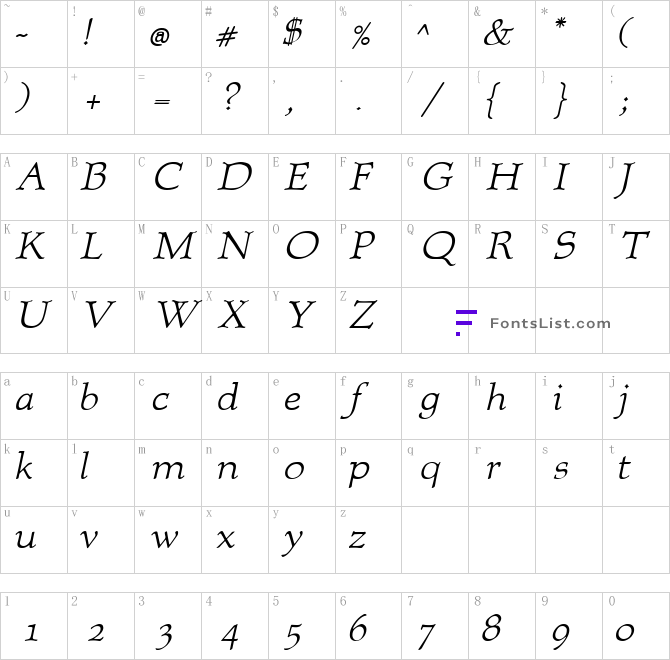
- Font Name:Albion Italic
Albion-Italic.ttf is a very beautiful artistic font, Albion-Italic.ttf is widely used in the design and printing of various books and pictures,Albion-Italic.ttf has a strong visual impact,Albion-Italic.ttf is a commonly used font in newspapers, magazines and books, and is used in posters, e-commerce Poster design, store design, logo design, font design and other fields.Albion-Italic.